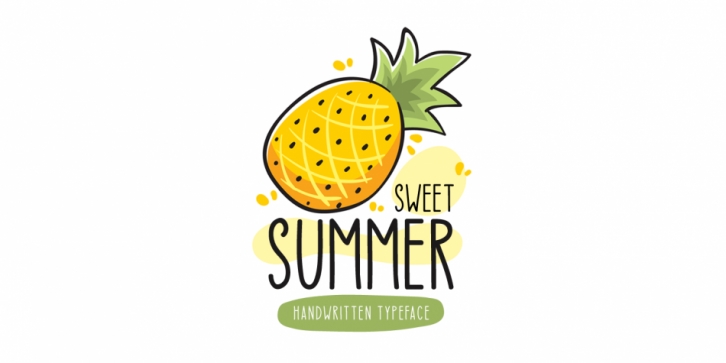
Designed by Md. Shohail Bhuiyan, Sweet Summer is a hand drawn font published by Seemly Fonts.
Sweet Summer is a brand new handwritten font. Sweet Summer is perfectly suited for stationery, logos, t-shirt, paper, print design, website header, photo frame, flyer, music cover, poster, image slider, and much more.